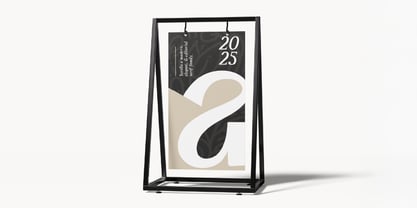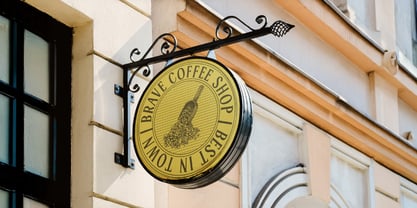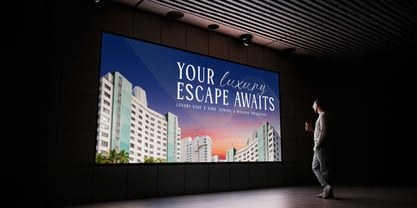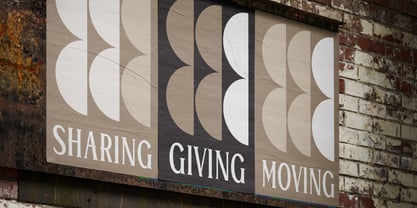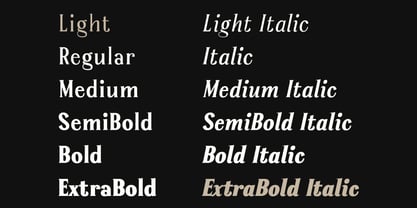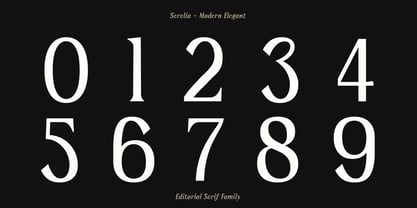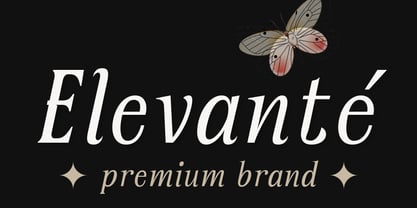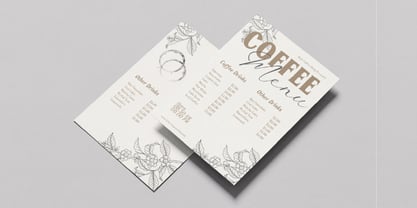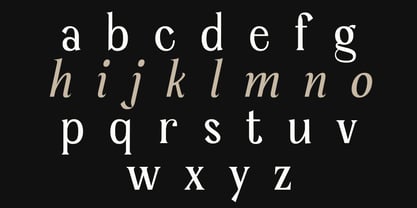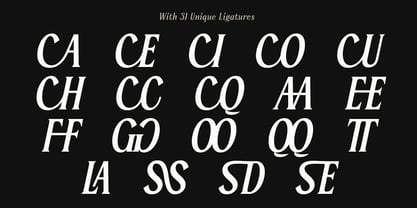
Serelia
Die Schriftfamilie Serelia wurde von Diki Pradipta Tri Atmojo entworfen und von Lettertype Studio veröffentlicht. Serelia enthält 12 Stile und Familienpaketoptionen. Mehr über diese Familie
Serelia is a refined editorial serif crafted with graceful contrast, elegant curves, and expressive signature details designed for premium branding. Its upright styles blend modern precision with classic warmth, enhanced by a wide collection of stylistic alternates across A–Z, a–z, including double-story “a”, luxury ampersand sets, and the iconic R-signature shape. Key ligatures like CA, CE, CI, CO, CU, CH, CC, CQ, AA, EE, FF, GG, OO, QQ, SD, SE, SS, TT, and LA deliver a distinctive, editorial personality in every layout. With 12 total styles (6 Upright + 6 True Italic), Serelia offers deep typographic versatility — from bold headlines to delicate subheadings. Additional OpenType features, multilingual Latin support, and optimized screen rendering make it fully ready for both print and digital environments. Serelia is made for designers who want elegance, flexibility, and statement-making letterforms.
Serelia